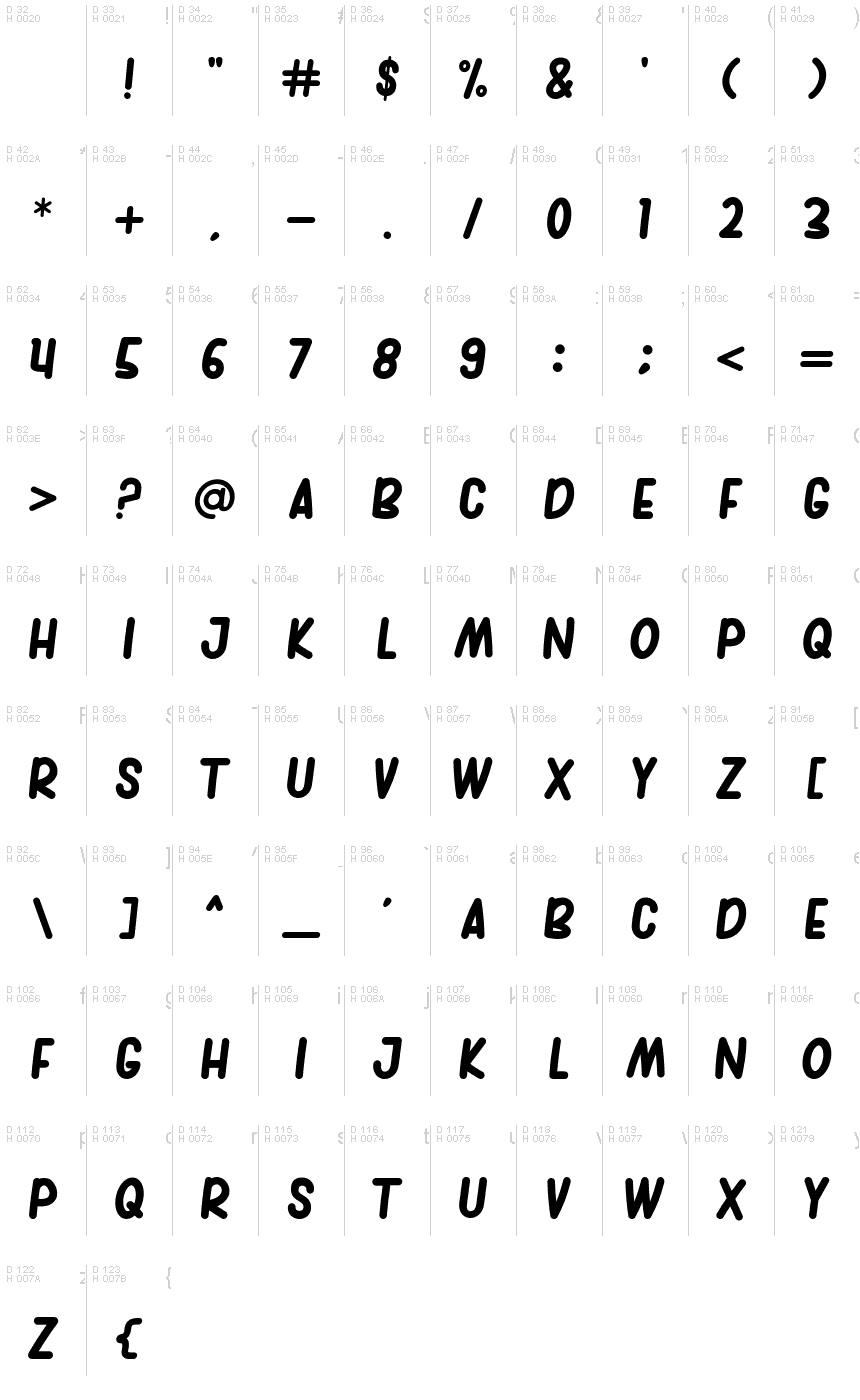
sambi lemon
Sambi Lemon, the latest creation from Rahagita Studio, is a bold and playful display font perfect for any project that calls for a touch of whimsy. With its semi-bold weight and semi-condensed width, this typeface is ideal for headlines, posters, packaging design, and more. The comic style of Sambi Lemon lends itself well to children's books or products aimed at a younger demographic, but its versatility ensures it can be used in a variety of contexts. Bring some fun and personality to your next design project with Sambi Lemon!